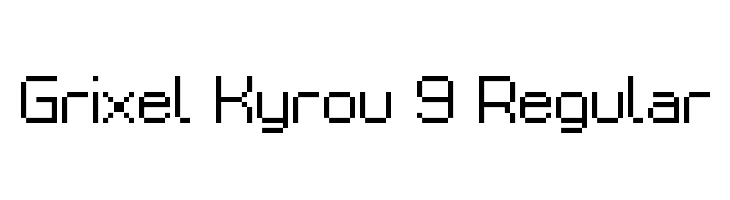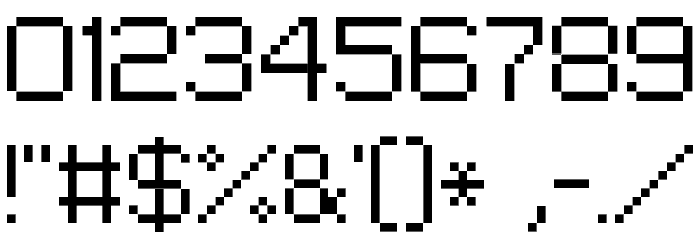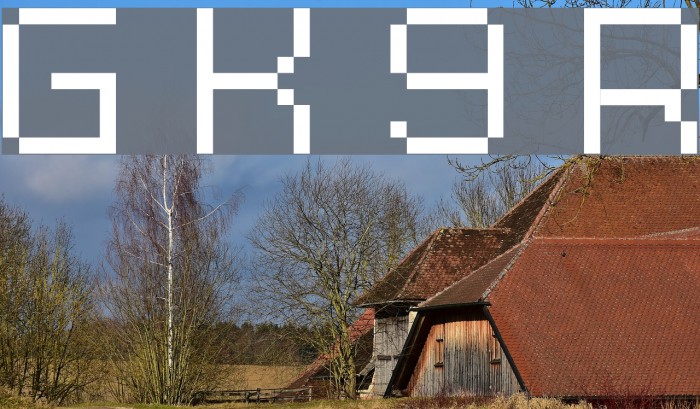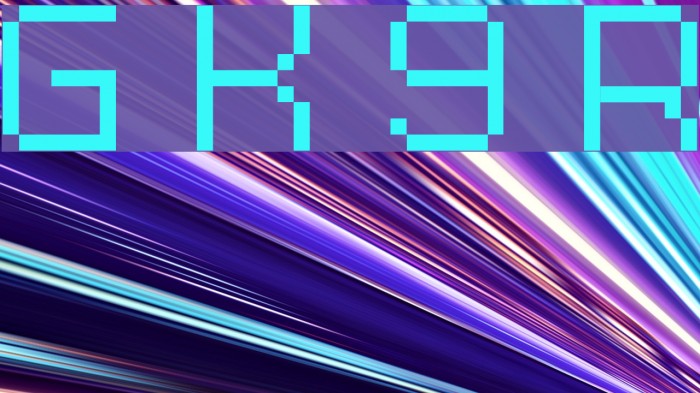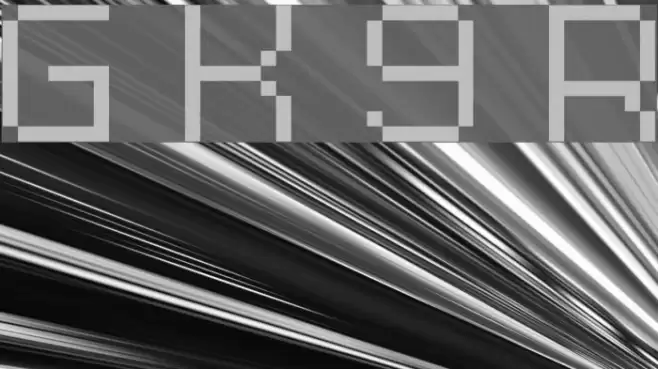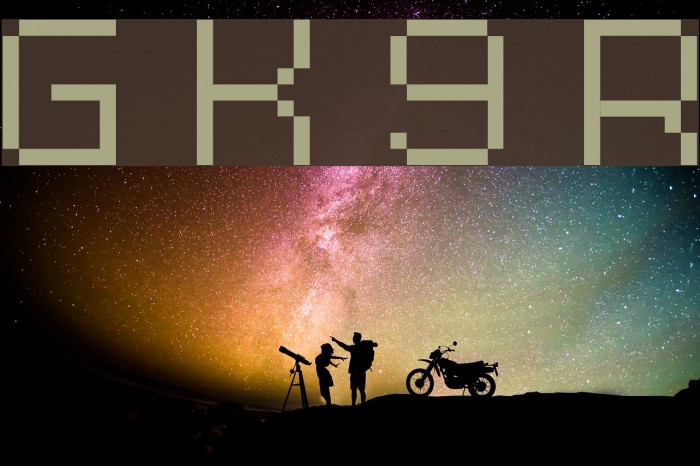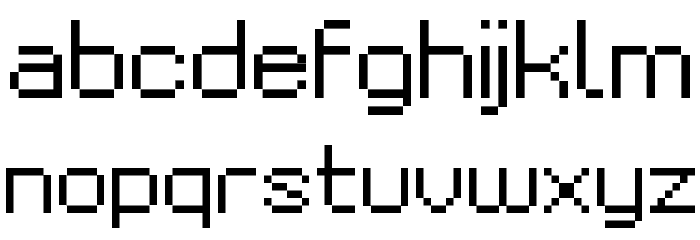
Grixel Kyrou 9 Regular Font
Grixel Kyrou 9 Regular Description
This font features a pixelated, grid-like structure reminiscent of early digital displays and retro video games. Each character is composed of uniform square blocks, giving it a distinctly geometric and monospaced appearance. The uppercase and lowercase letters maintain a consistent height, contributing to its orderly and structured look. The numerals and special characters follow the same design principles, ensuring a cohesive visual style across all glyphs. This font's simplicity and clarity make it highly legible, even at smaller sizes, while its nostalgic aesthetic evokes a sense of vintage computing.
| Overall Style | Vintage |
| Use Case | Logos, Digital displays, Video game graphics |
| Proposed Projects | Ideal for retro-themed designs, video game graphics, digital displays, and tech-related branding. |